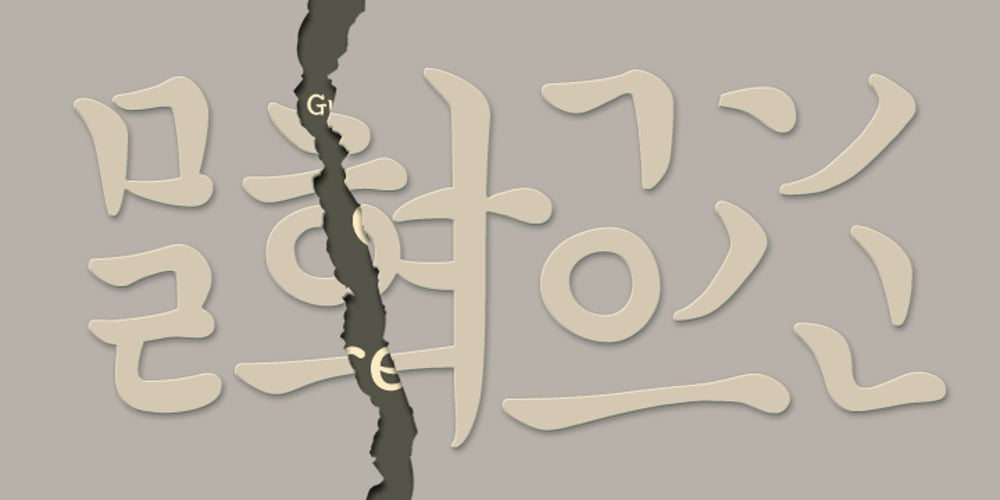
Core Gungseo Font Family was designed by Hyun-Seung Lee and published by S-Core. Core Gungseo contains 2 styles and family package options. CoreGungseo is a Korean calligraphy font. We considered the change of stroke thickness and the power & speed of brushes when designing this calligraphy font. This font has the beauty of spaces by proper balance among individual letter forms. Both horizontal and vertical writing are acceptable to use. Supported codepages are MS Windows 1252 Latin1 and MS Windows 949 Korean consisting of 11,172 Korean letters and Symbols except Chinese. We suggest to use for books, cards, displays and so on.